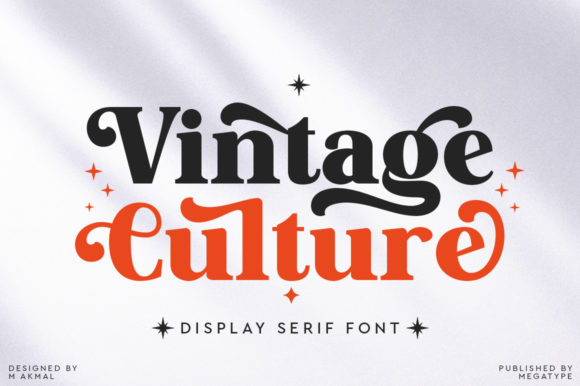
Unleash the Allure of Vintage Culture: A Serif Font That Transforms Designs into Masterpieces
In a world where fonts hold the power to captivate, Vintage Culture emerges as a timeless serif masterpiece, ready to elevate your designs to new heights. Crafted by the renowned Megatype, this font family exudes an aura of sophistication and charm, leaving an indelible mark onã�‚らゆるプãƒã‚¸ã‚§ã‚¯ãƒˆ.
With its PUA encoding, Vintage Culture grants you effortless access to a treasure trove of glyphs and swashes, empowering you to weave intricate typographic tapestries that speak volumes. Its versatile nature knows no bounds, effortlessly adapting to a symphony of creative endeavors.
Adorn your logos with an air of distinction, allowing them to stand out amidst a sea of mediocrity. Craft elegant invitations, imbuing them with a touch of timeless grace. Elevate your branding materials, conveying a sense of professionalism and refinement that commands attention.
Vintage Culture's charm extends far beyond the realm of logos and branding. Unleash its potential in creating eye-catching posters, where every letter dances with elegance, drawing the gaze and captivating the imagination. Transform your social media presence into a visual masterpiece, where each post radiates with a unique personality that resonates with your audience.
Fall under the spell of Vintage Culture, a font that transcends the ordinary, carrying your designs to the pinnacle of visual artistry. Embrace its versatility, allowing your creativity to soar without limits. Experience the transformative power of a font that breathes life into words, turning them into captivating expressions of your unique vision.
Dare to be bold, to break free from the mundane, and embrace the allure of Vintage Culture. Let your designs blossom into works of art, leaving an unforgettable impression on anyone who encounters them.